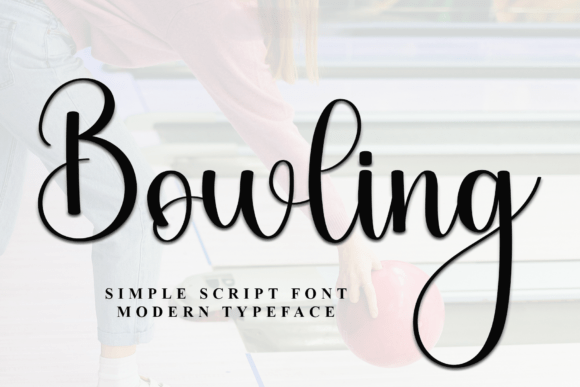
Enter the Bowling Font, a beautiful handwritten script that brings a touch of sophistication to any design. With its long loops and elegant strokes, it’s the perfect choice for sport logos, casual modern designs, or any project that needs a dash of charm. Whether you’re a seasoned designer or just starting out, the Bowling Font is a valuable addition to your toolkit – it’s a game-changer that will elevate your designs and leave a lasting impression.
Bowling Font Key Features
- Font Family: A unique, playful font family designed to evoke the nostalgia of classic bowling alleys.
- Unique Characteristics: Distinctive rounded shapes and subtle curves give the font a friendly, approachable feel.
- Style Variations: Includes multiple style variations, including Regular, Bold, Italic, and Bold Italic, for added versatility.
Bowling Font Review
At first glance, Bowling Font seems like a fun and playful choice for any design project. ✨ The font’s unique, cursive design makes it perfect for adding a touch of whimsy to your designs. It’s great for titles, headings, and even body text in certain contexts.
Here are some of its strengths:
- ✨ Unique and memorable design that stands out from the crowd
- ✨ Can be used effectively in a variety of design contexts, from logos to posters
- ✨ Supports a range of languages, making it a versatile choice
- ⚠️ May be difficult to read in certain font sizes or contexts
- ⚠️ Can be overwhelming if used too extensively in a design
- ⚠️ May not be suitable for formal or professional designs
Overall, I think Bowling Font is a great choice for designers who want to add a bit of personality to their projects. While it may not be suitable for every design context, it’s definitely worth considering for the right project.
The Bowling Font is commonly used for:
- Creating eye-catching headlines and titles.
- Designing custom logos and graphics.
- Adding a touch of nostalgia and retro flair to designs.
- Choose a bright, bold color scheme to match the retro aesthetic.
- Use the Bowling Font for the main text, such as the arcade name or game titles.
- Add some pixel art graphics or other retro-style design elements to complete the look.
- Pair the Bowling Font with other bold, sans-serif fonts for a cohesive look.
- Use neon colors and gradient effects to add depth and visual interest.
- Don’t forget to include some fun, playful graphics, such as pixel art characters or classic video game icons.
- Choose a bright, eye-catching color scheme to match the party theme.
- Use the Bowling Font for the main text, such as the party invitation or game details.
- Add some fun, sporty graphics, such as bowling balls or sports equipment, to complete the look.
- Pair the Bowling Font with other bold, playful fonts for a
What is Bowling Font, and where did it originate?
Bowling Font is a sans-serif font designed by Vernon Adams, released in 2014. It was created to evoke the nostalgic feel of classic bowling alleys and retro signage. The font is available in various weights and styles, making it suitable for a wide range of design applications.
Project Ideas Using Bowling Font
Project 1: Retro Arcade Sign
Create a retro arcade sign using the Bowling Font to give it a nostalgic feel. This font is perfect for capturing the essence of classic arcades and pinball machines.
Project 2: Sports-Themed Party Invitations
Use the Bowling Font to create fun and festive party invitations for a sports-themed party. This font is perfect for capturing the excitement and energy of a bowling alley or sports stadium.